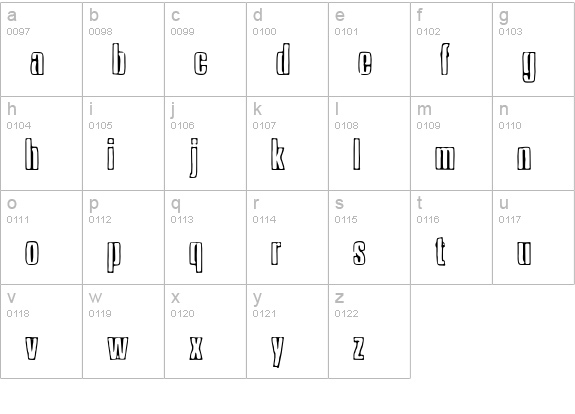
Ink Tank (BRK) is a captivating and versatile font that exudes a unique charm. With its bold, yet elegant letterforms, this typeface is perfect for adding a touch of sophistication to any design project. The fluid strokes and distinct character shapes create a truly eye-catching aesthetic. This font is not only visually appealing, but it also offers the convenience of being free to use. Whether you're a professional designer or a creative enthusiast, Ink Tank (BRK) is a fantastic choice for adding a touch of creativity to your work without breaking the bank. One of the best things about Ink Tank (BRK) is that it is freely available to download at FontsMarket.com. This means that you can easily access this font and incorporate it into your projects without any hassle. Whether you're working on branding materials, advertisements, websites, or any other creative endeavor, Ink Tank (BRK) is sure to make a lasting impression. With its clean lines and bold presence, Ink Tank (BRK) is incredibly versatile. It can be used for headlines, logos, posters, and more, effortlessly adapting to any design concept. Its legibility and unique personality make it suitable for both digital and print applications, ensuring that your message is conveyed with clarity and style. Ink Tank (BRK) is a font that stands out from the crowd, offering a perfect balance between elegance and impact. Its timeless appeal will ensure that your designs remain relevant and captivating for years to come. So why wait? Download Ink Tank (BRK) for free at FontsMarket.com and elevate your creative projects to new heights.